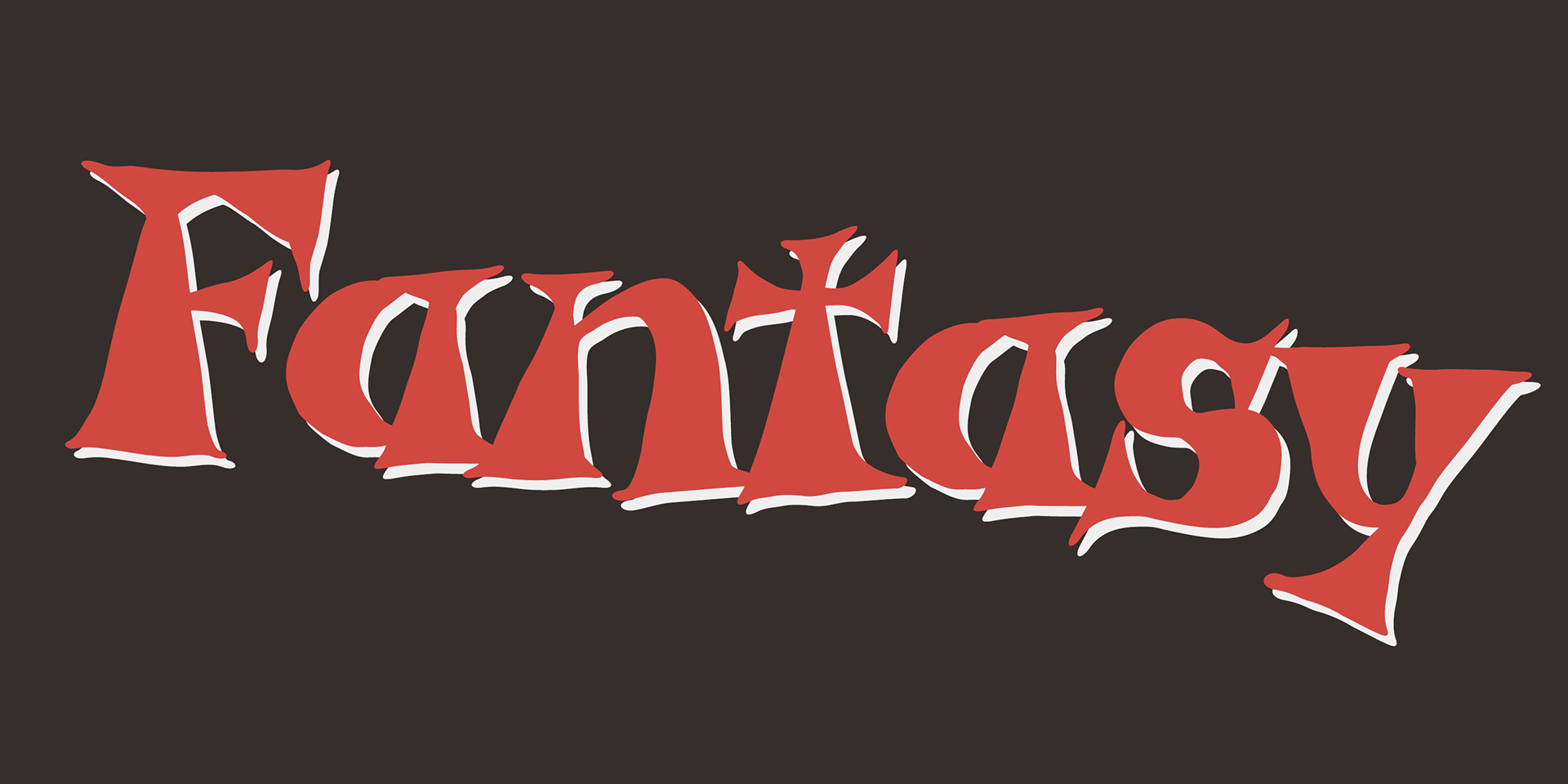
Garash Script
A highly decorative script inspired by vintage lettering from Eastern Europe.
Its charming, ornate style is perfect for picture books, children’s toys, and other playful, eye-catching designs.